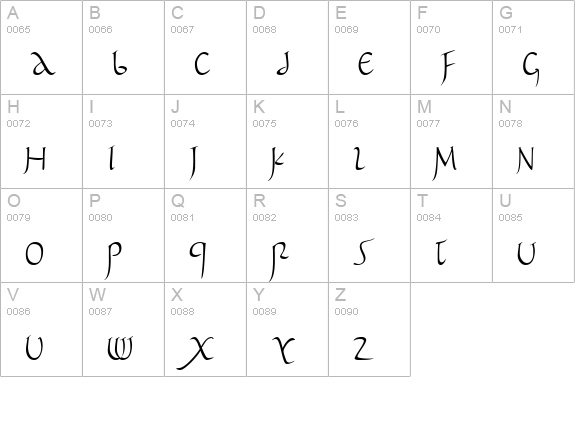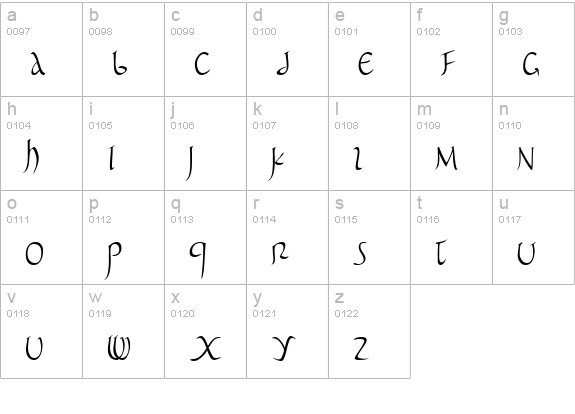
Pomponianus Font Details
Pomponianus font is a versatile and elegant typeface that exudes sophistication and style. With its classic yet modern design, this font is perfect for a wide range of projects, from branding to editorial design. The clean lines and sharp angles of Pomponianus font lend a sense of professionalism and refinement to any text it graces. The best part about Pomponianus font? It's completely free to download at FontsMarket.com! This means you can elevate your designs without having to spend a dime. Whether you're a seasoned designer or a novice just starting out, Pomponianus font is a valuable addition to your font library. Don't miss out on this amazing opportunity to enhance your projects with this stunning typeface.